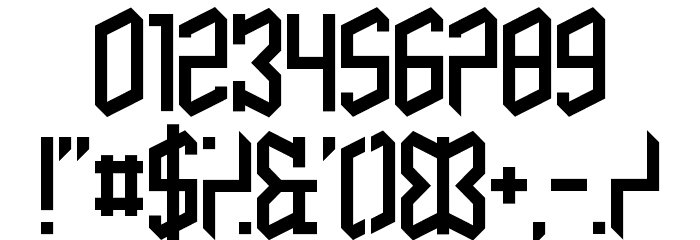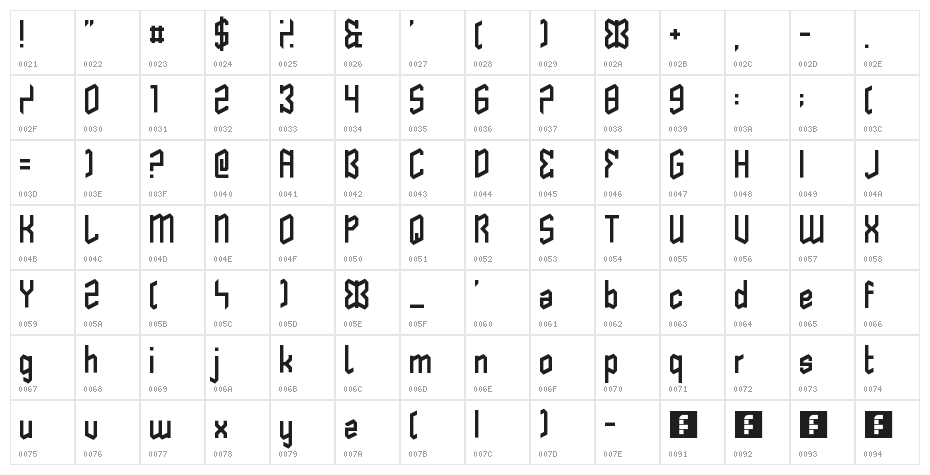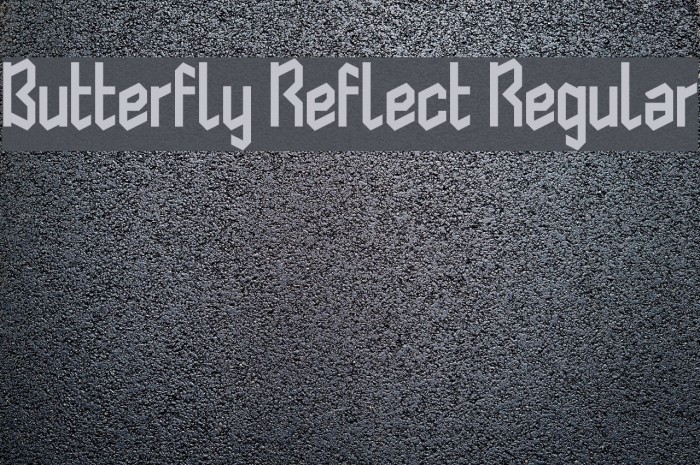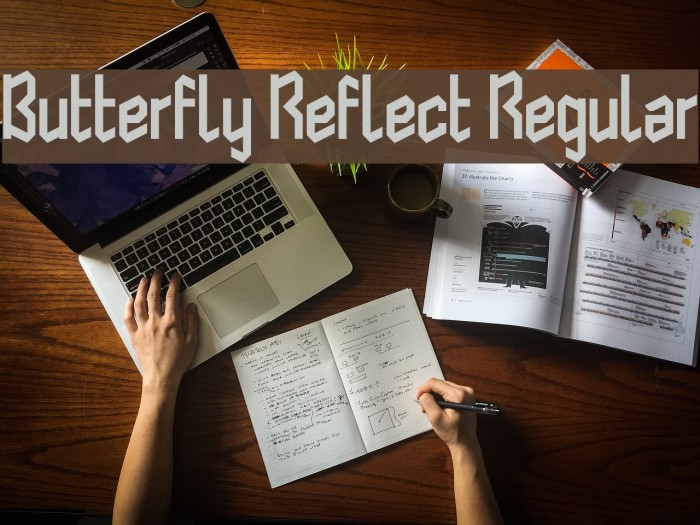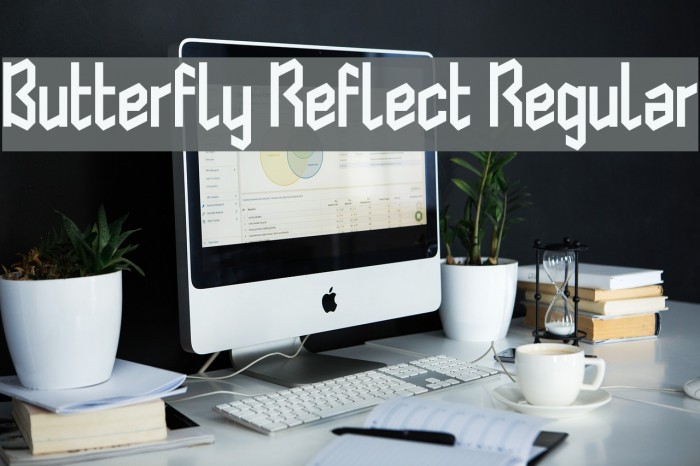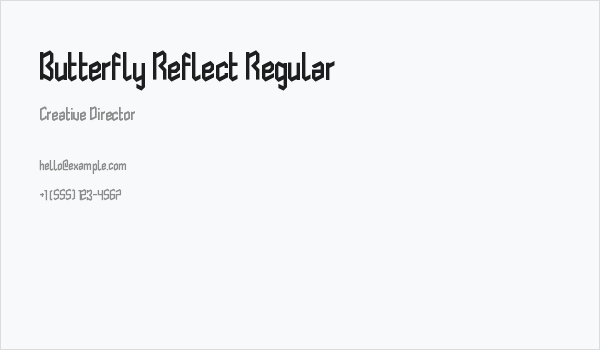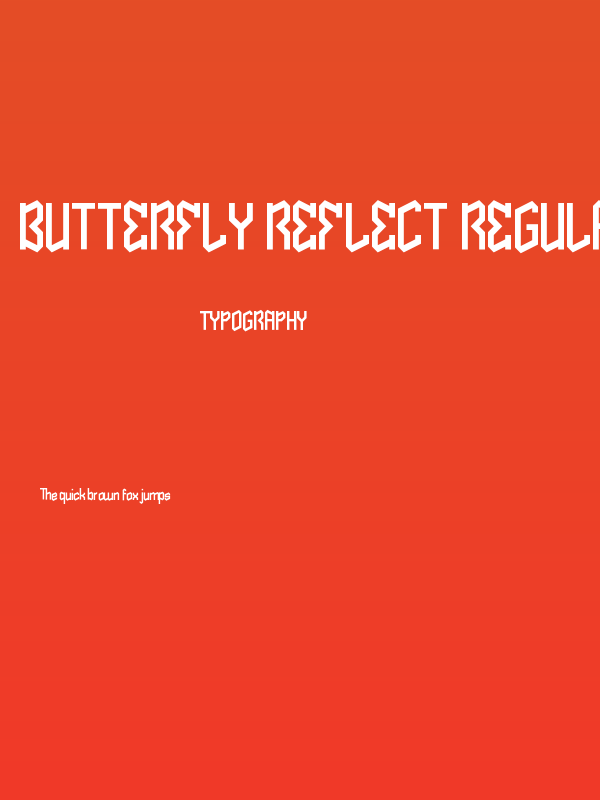
Butterfly Reflect Regular Font
Butterfly Reflect Regular Description
This font features a bold, geometric design with sharp angles and a modern aesthetic. The characters are constructed with a consistent stroke width, giving it a uniform appearance. The uppercase and lowercase letters maintain a similar style, with distinct angular cuts that create a futuristic and edgy look. The numerals and special characters follow the same design principles, ensuring cohesion across all glyphs. This font's unique style makes it stand out, offering a distinctive option for creative projects.
| Proposed Projects | Ideal for branding, posters, album covers, and any project requiring a modern, standout typeface. |